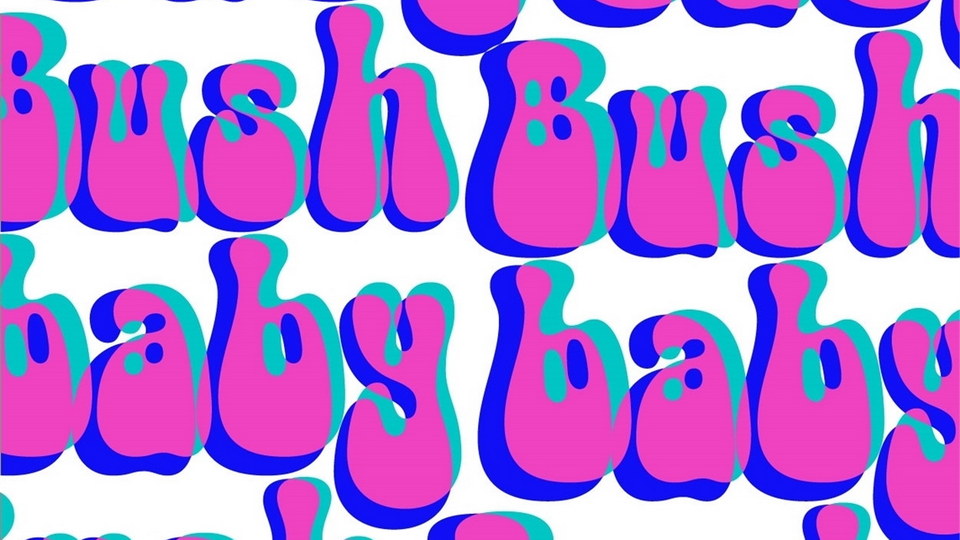
Download Bushbaby font, a groovy display typeface with a very gentle character. It is about love, expressiveness, gentleness and tenderness. Bushbaby font refers to the turn of the 80s and 90s. Hippie aesthetics.